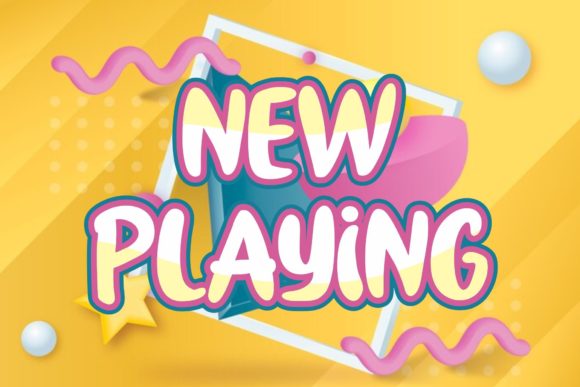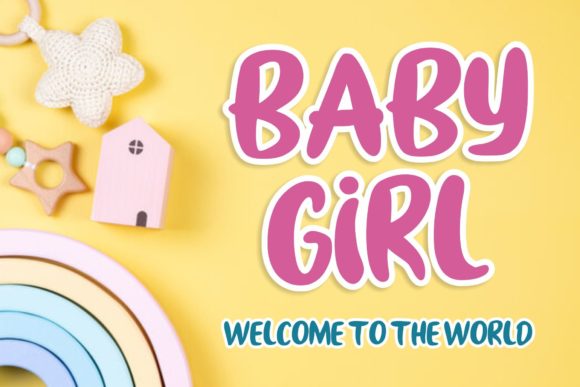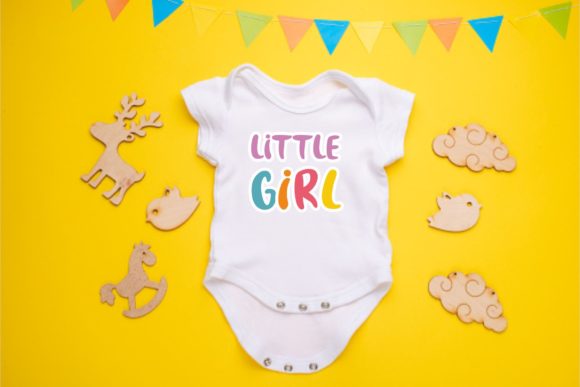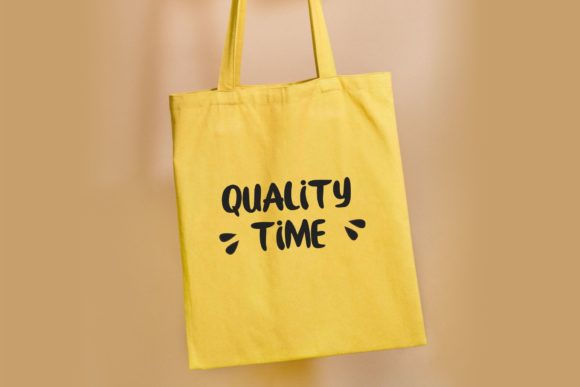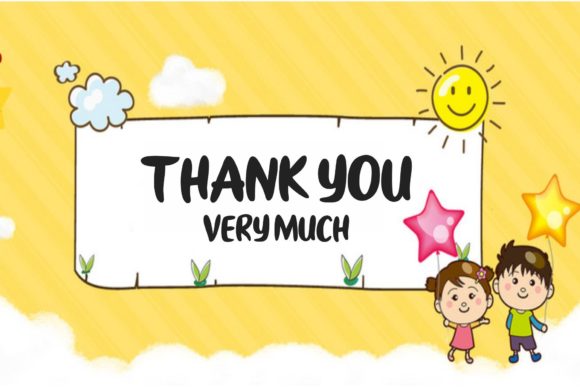
Introduction to Quick Play Font
Have you ever been stuck on a creative project, staring at a blank page or screen, desperate for the perfect font to bring your idea to life? That’s where the Quick Play Font comes in – a charming, handwritten display font that’s sure to add a touch of whimsy to your design.
As a valuable resource for designers, the Quick Play Font is a game-changer for those looking to add a bit of personality to their work. With its informal feel and relaxed atmosphere, it’s the perfect choice for any creation that requires a touch of fun. Whether you’re working on a product packaging design, a t-shirt label, or a poster for a local event, the Quick Play Font is sure to elevate your design and make it stand out.
Key Features of Quick Play Font
- Unique, high-quality font design suitable for a wide range of applications
- Designed with a large character set, including Latin, Cyrillic, and Greek alphabets, for maximum versatility
- Includes a comprehensive set of glyphs, including punctuation marks and special characters, for a complete typographic experience
Honest Review: Quick Play Font
I recently stumbled upon the Quick Play Font, and I must say it’s been a game-changer for my creative projects. As a designer, I’m always on the lookout for high-quality design resources that can elevate my work.
What works well with the Quick Play Font is its versatility. The font is perfect for a variety of projects, from digital designs to print materials. The transparent background feature allows for seamless integration with any design element, making it a breeze to use.
- ✨ High-quality design: The Quick Play Font is crisp and clear, making it perfect for any creative project.
However, there are a few limitations to consider. The font selection is somewhat limited, and I wish there were more options to choose from. Additionally, the font may not be suitable for very large-scale projects due to its size and file limitations.
Overall, I’m impressed with the Quick Play Font, and I would definitely recommend it to fellow designers. While it may have some limitations, its high-quality design and free download make it a valuable resource for any creative project.
Quick Play Font
The Quick Play Font is a versatile design resource ideal for creative projects that require high-quality text. This free download offers a transparent background, making it easy to integrate into various design elements.
Experiment with different font sizes, colors, and styles to create a unique look. Use the transparent background to create visually appealing design elements.
The Quick Play Font is ideal for creating titles, headings, and body text in creative projects. Use it in social media graphics, presentations, and documents to add a professional touch.